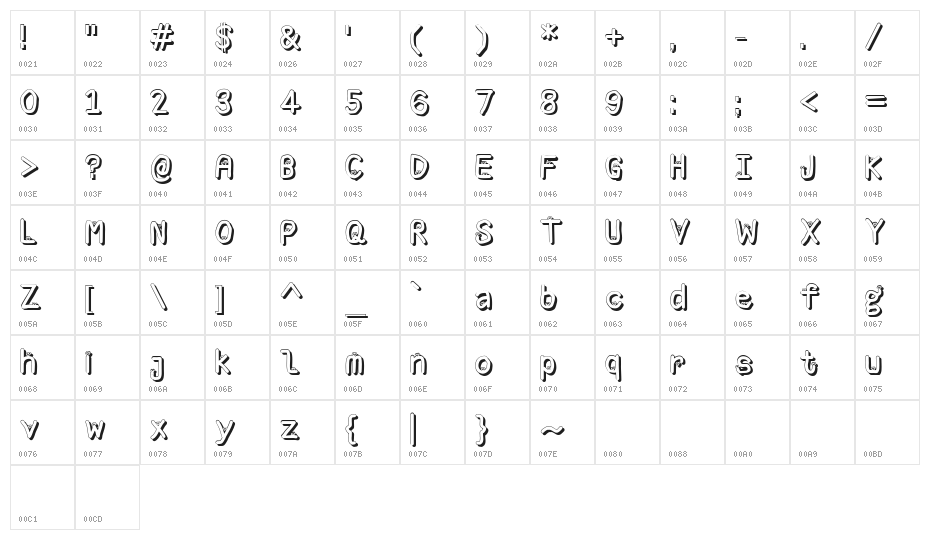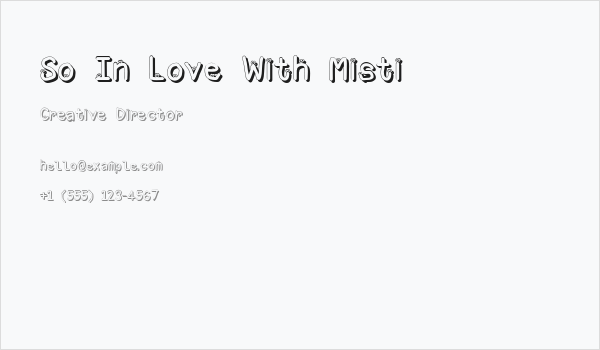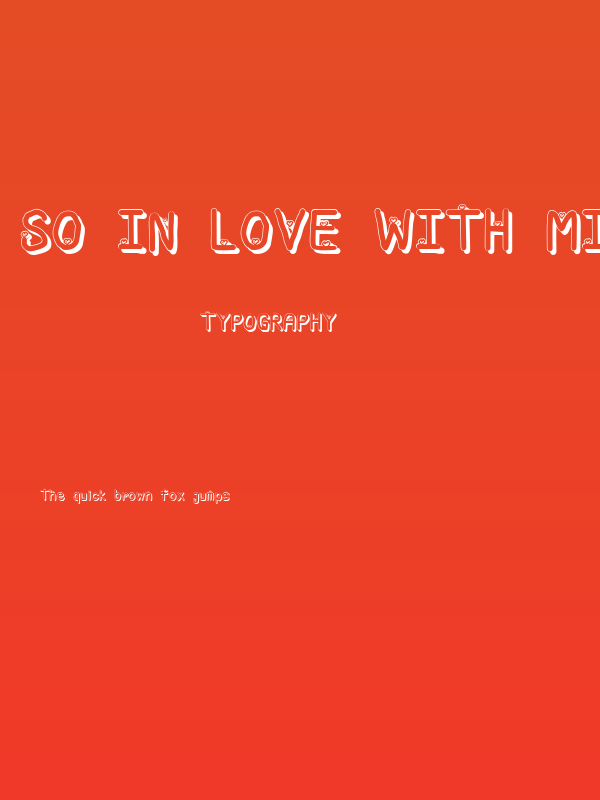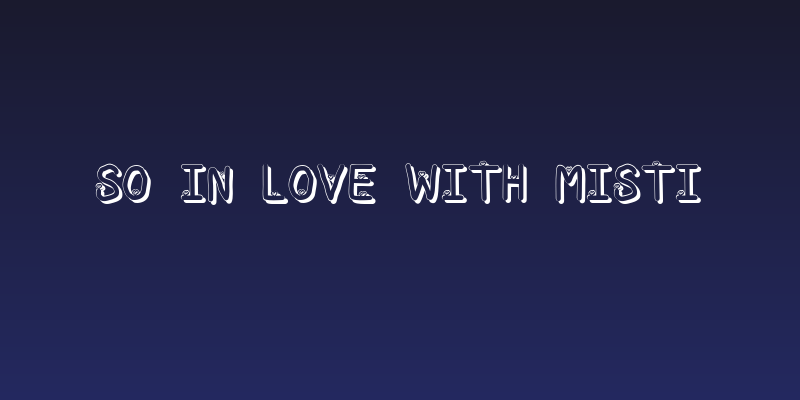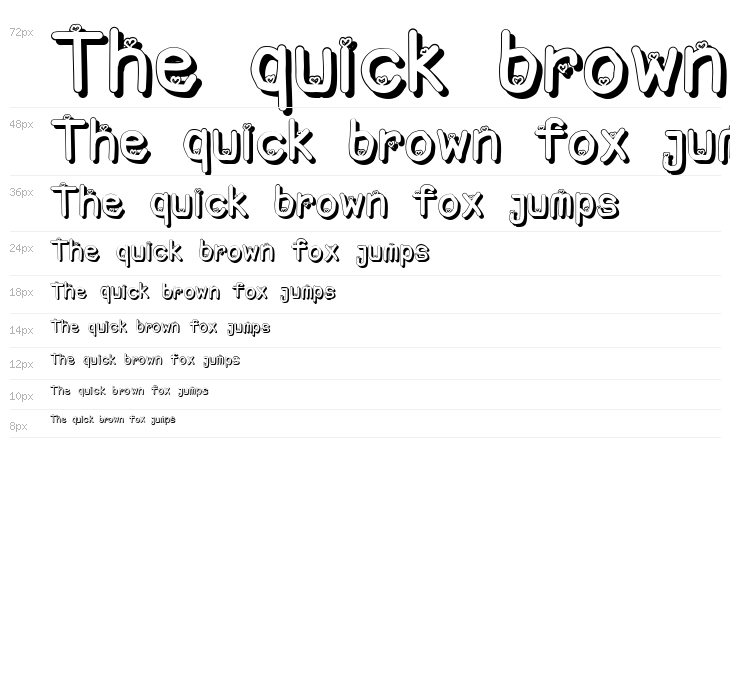
So In Love With Misti Font
So In Love With Misti Description
This playful and whimsical font features a bold, outlined style with charming heart motifs integrated into each character. The letters are rounded and have a consistent thickness, giving them a friendly and approachable appearance. The heart embellishments add a touch of romance and fun, making it ideal for projects that require a lighthearted and affectionate tone. The font maintains a consistent weight and width throughout, ensuring readability while still being decorative. Its unique style makes it stand out, perfect for creative and expressive designs.
| Proposed Projects | Ideal for Valentine's Day cards, wedding invitations, playful branding, and children's book covers. |